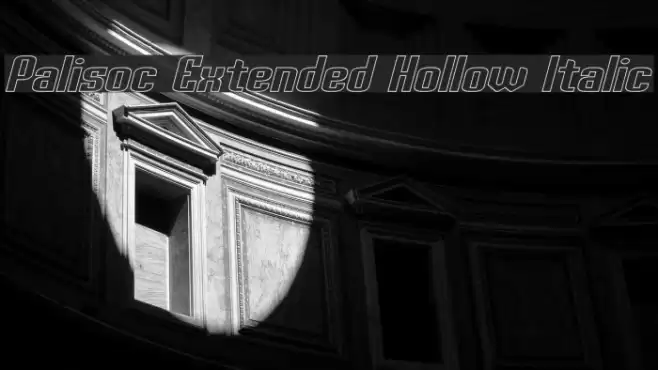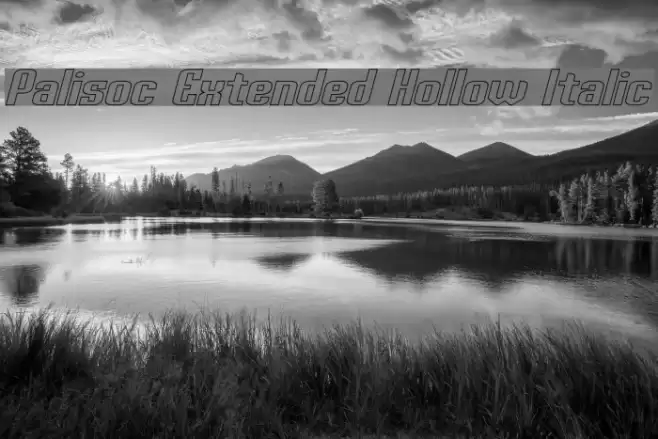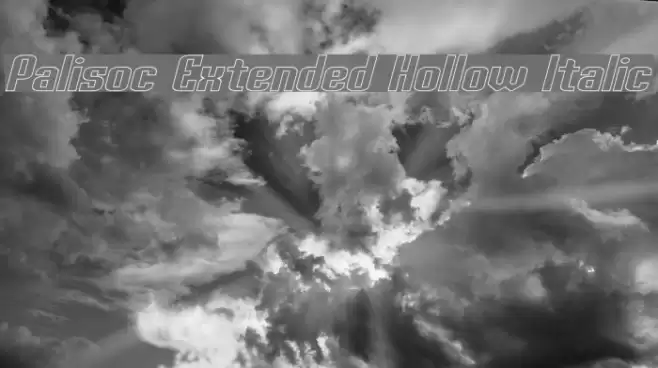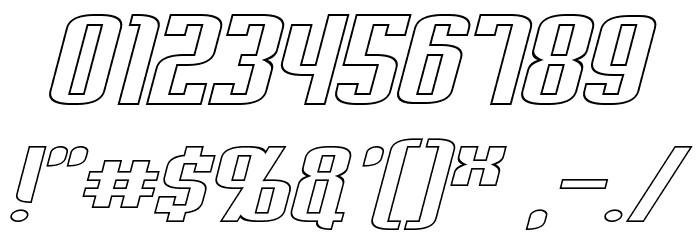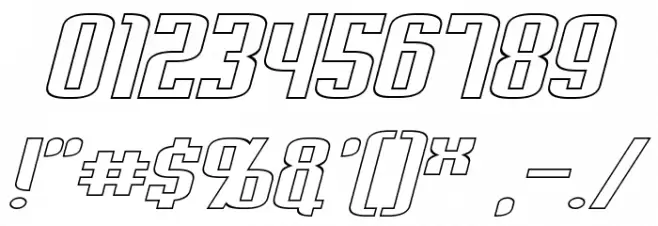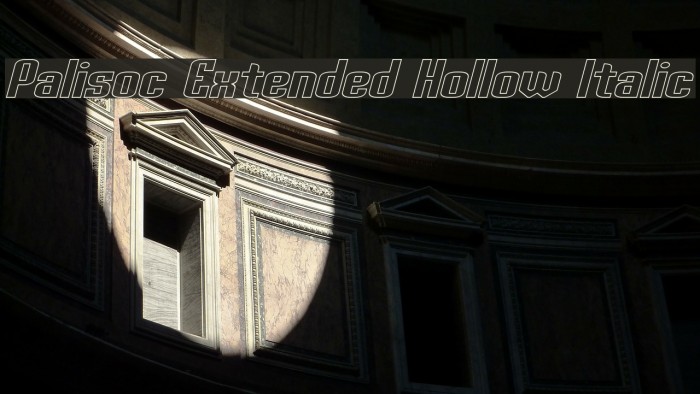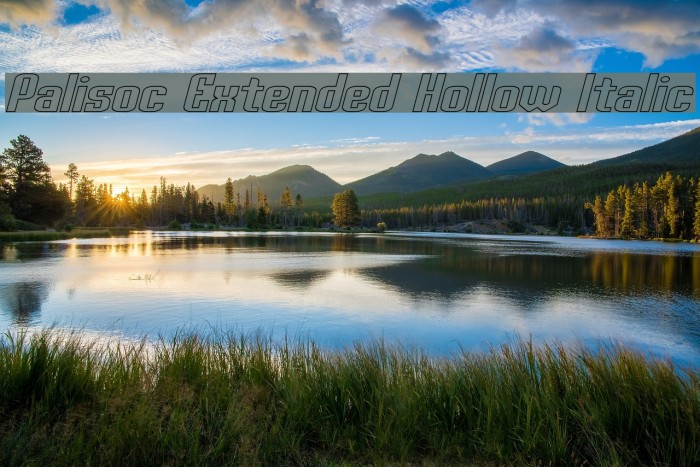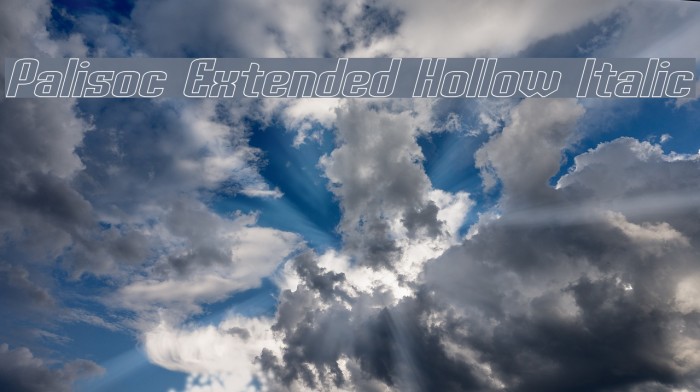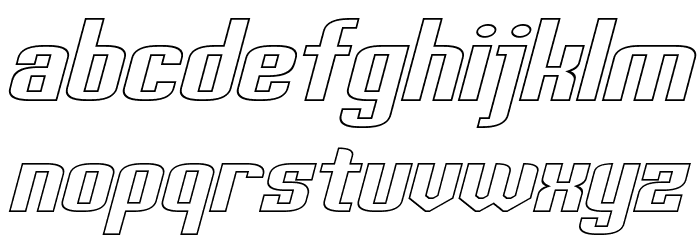
Palisoc Extended Hollow Italic
This font features a modern, geometric design with hollow characters, giving it a unique and airy appearance. The letters are extended and italicized, creating a dynamic and forward-leaning look. The clean lines and open spaces within each character contribute to a futuristic and stylish aesthetic. The uppercase and lowercase letters maintain consistent proportions, while the numerals and special characters complement the overall design. This font is ideal for projects that require a bold statement with a touch of elegance and modernity.
A modern, extended, hollow, and italicized font with a futuristic style.
- Proposed Projects: Ideal for branding, posters, headlines, and digital media that require a contemporary and eye-catching design.
- Width: Expanded
- Use Case: Headlines, Logos, Posters